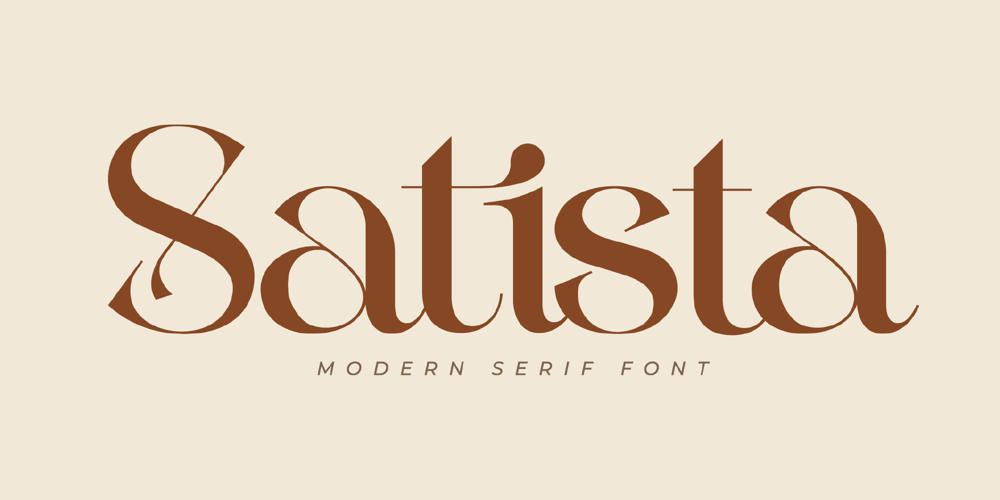
Satista Font Family was designed by Heru Utama Putra and published by Letterena Studios. Satista contains 2 styles and family package options. Satista is a modern and stylish serif font. Its distinct and well-balanced letters make this font a masterpiece. Fall in love with its incredibly versatile style and use it to create spectacular designs!